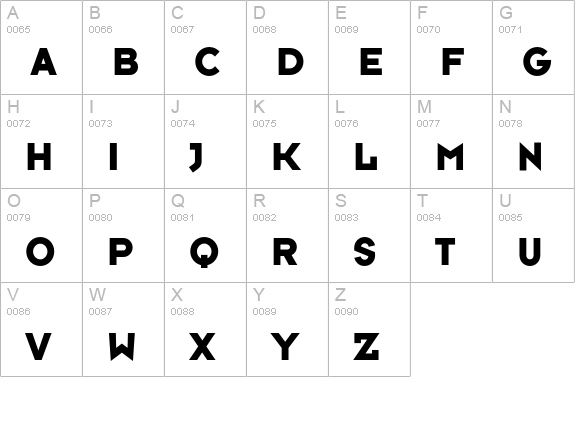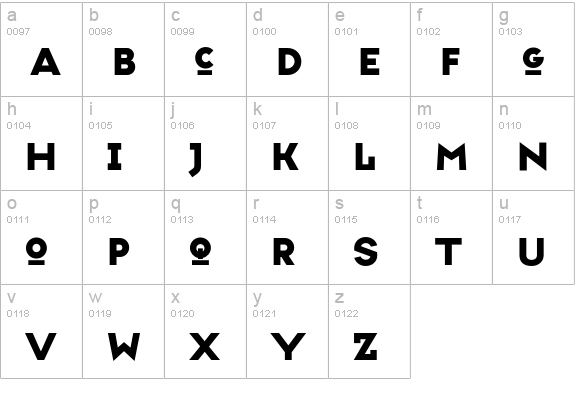
TypefaceSix Font Details
Introducing TypefaceSix, a stunning font that exudes elegance and sophistication. This versatile typeface combines modern elements with classic design, making it perfect for a wide range of creative projects. Whether you're designing a logo, creating eye-catching headlines, or crafting beautiful invitations, TypefaceSix will elevate your work to new heights. With its sleek and clean lines, this font captures attention effortlessly. Each letter is meticulously crafted, showcasing a perfect balance between simplicity and uniqueness. The sharp edges and bold strokes imbue a sense of confidence and professionalism, making TypefaceSix ideal for both digital and print media. But what sets TypefaceSix apart is not just its impeccable design, but also its accessibility. We are thrilled to announce that TypefaceSix is available for free download exclusively at FontsMarket.com. Yes, that's right - this incredible font can be yours without spending a dime. Say goodbye to hefty licensing fees and hello to creative freedom. By offering TypefaceSix for free, we aim to empower designers and artists of all backgrounds to bring their visions to life. Whether you're a seasoned professional or just starting out, this font opens up endless possibilities, allowing you to experiment and create without any limitations. So why wait? Head over to FontsMarket.com now and get your hands on TypefaceSix. Join the growing community of designers who have already embraced this remarkable font. Unleash your creativity and make a lasting impression with TypefaceSix - the font that combines style, accessibility, and the freedom to create.